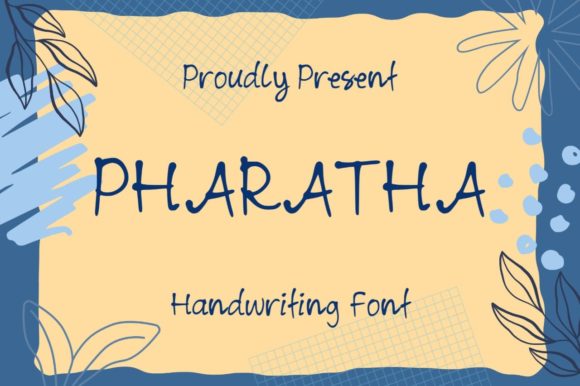
Unleash your creativity with Pharatha Font, a captivating handwritten font that will transform your designs into stunning masterpieces. Embark on an artistic journey where elegance meets simplicity, allowing your words to dance with charm and personality.
With Pharatha Font, you'll discover a world of endless possibilities. Its graceful strokes and playful characters bring a touch of sophistication to any project, whether you're crafting logos, designing websites, creating captivating social media posts, or adding a personal touch to your presentations.
Immerse yourself in the beauty of Pharatha's intricate details. Each letter is meticulously crafted to evoke a sense of authenticity and charm, infusing your designs with a timeless appeal. The harmonious flow of the script adds a touch of elegance that will leave a lasting impression on your audience.
Whether you're a seasoned designer or just starting out, Pharatha Font is your perfect companion. Its user-friendly design makes it easy to incorporate into any project, allowing you to create stunning visuals effortlessly. Experience the joy of seamless creativity as you watch your ideas come to life with Pharatha's enchanting touch.